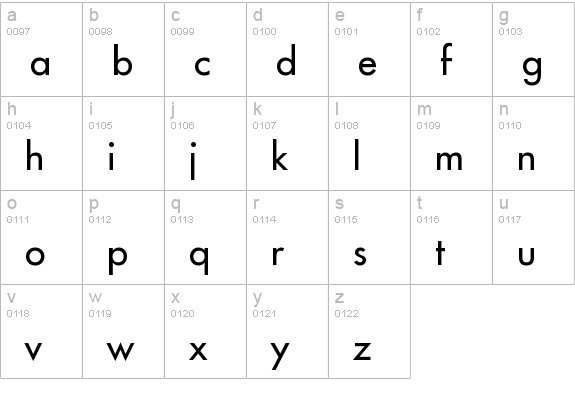
Intrepid Regular Font Details
Intrepid Regular is the standard, neutral variant in the Intrepid typeface family \xE2\x80\x94 well suited to general body text, paragraphs, and standard typographic work.
Intrepid Regular is a versatile and sophisticated font that embodies the spirit of adventure and courage. With its clean lines and refined letterforms, this font exudes a sense of confidence and determination. Designed for a wide range of applications, from print to digital media, Intrepid Regular effortlessly blends elegance and readability. Whether used for headlines, body text, or branding materials, this font guarantees a polished and professional appearance. What sets Intrepid Regular apart is its accessibility. It is freely available to download at FontsMarket.com, allowing designers, creatives, and enthusiasts to access this exceptional font without any cost. This font empowers individuals to unleash their creativity and bring their ideas to life, without the burden of a price tag. With its timeless appeal and the added advantage of being free, Intrepid Regular is the perfect choice for those seeking a font that combines style, versatility, and accessibility. Download it today at FontsMarket.com and embark on a typographic journey that is both inspiring and cost-effective.